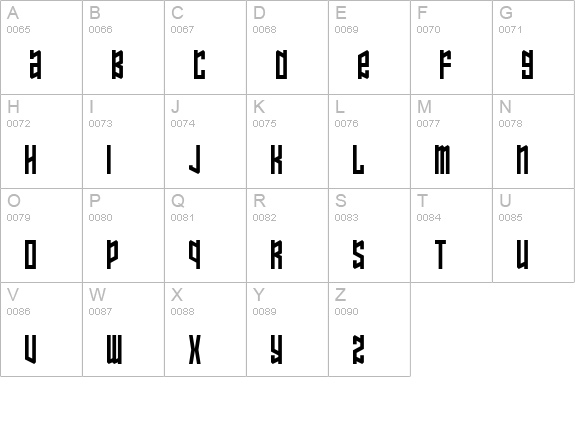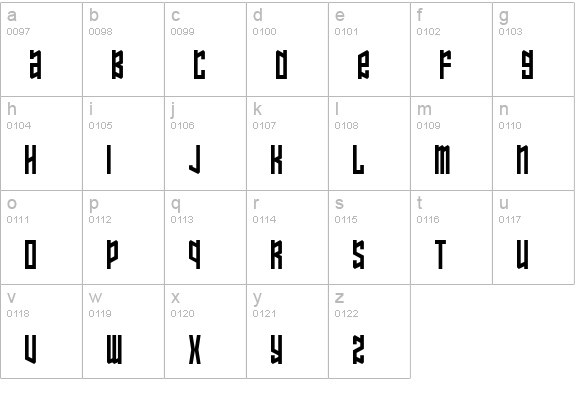
Ozone Layer Font Details
The Ozone Layer font is a stunning display typeface that exudes modernity and sophistication. Its sleek lines and unique design make it perfect for a wide range of creative projects, from branding to editorial design. With its bold yet elegant appearance, Ozone Layer is sure to make a statement and captivate your audience. What makes Ozone Layer even more appealing is that it is available for free download at FontsMarket.com. This means you can easily access this beautiful font and incorporate it into your work without any cost. Don't miss out on the opportunity to elevate your designs with the Ozone Layer font - download it today and unleash your creativity!